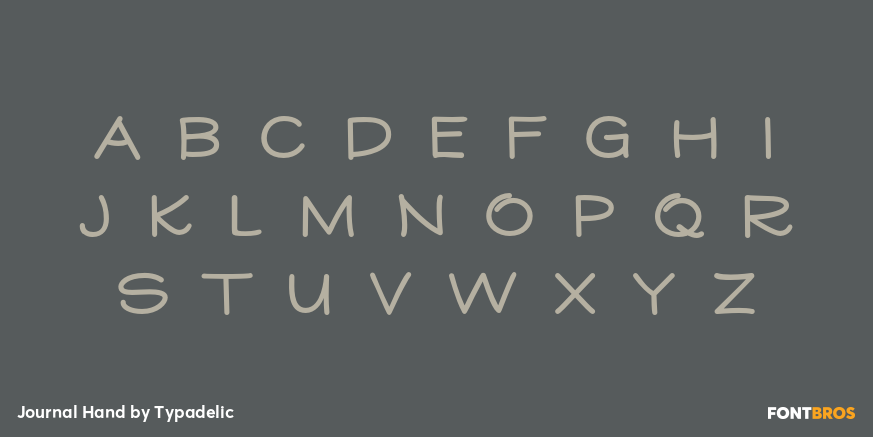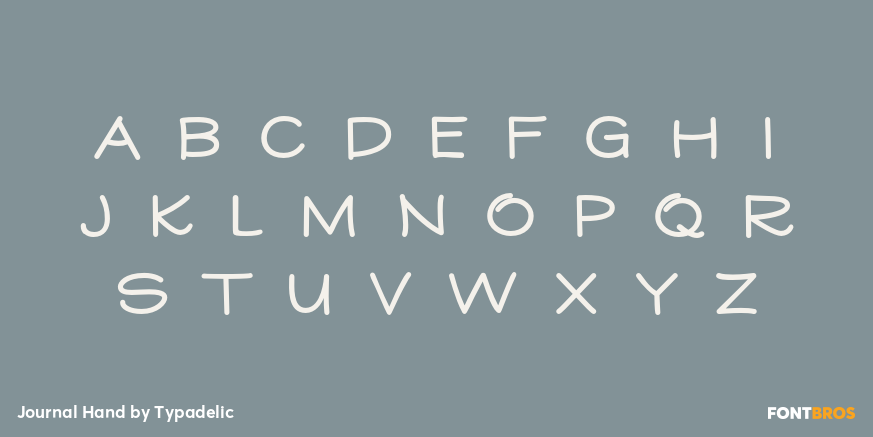
Journal Hand
Font Family by Typadelic
Journal Hand was inspired by a 45-year-old travel diary I bought at an estate sale. The carefully constructed all-uppercase letters indicated that this traveler cared about style and legibility. Each picture, postcard and brochure that was glued into the diary had a neatly written caption and I admired the care this day tripper took to record his European trek. While the pages are now yellowed and falling apart, the handwriting is still legible and stylish. Because his handwriting totally suits today's uses, I re-created it in modern journalistic style that looks like it was written with a technical pen. Use this typeface when you need a neatly handwritten style. Uppercase only!